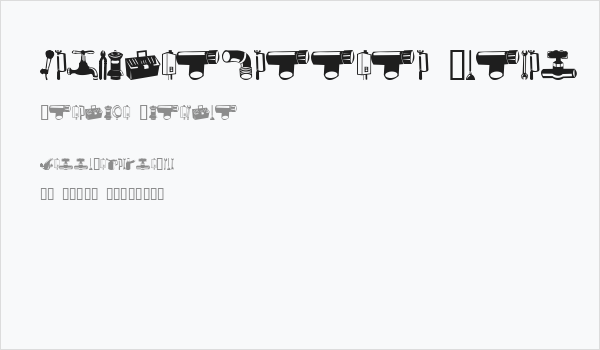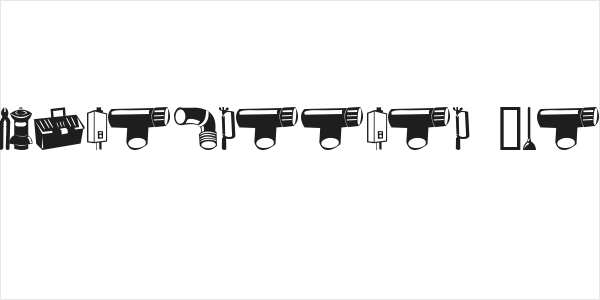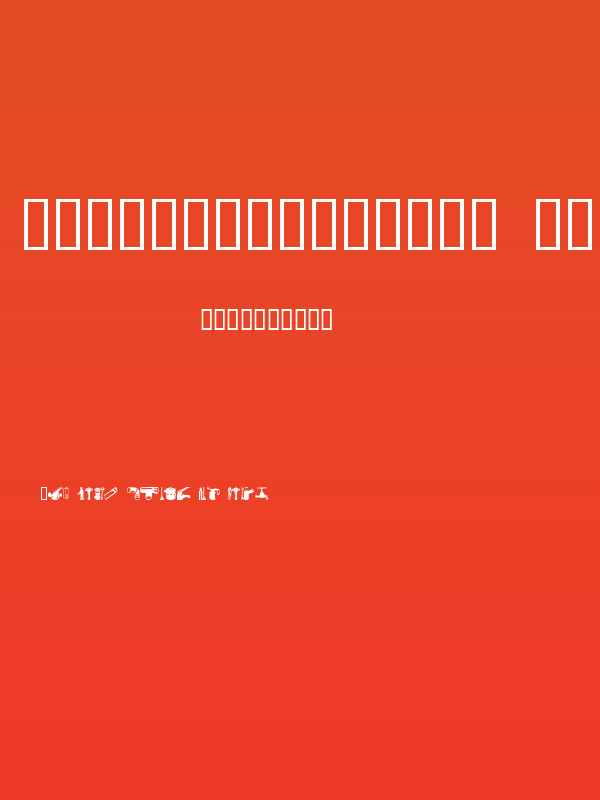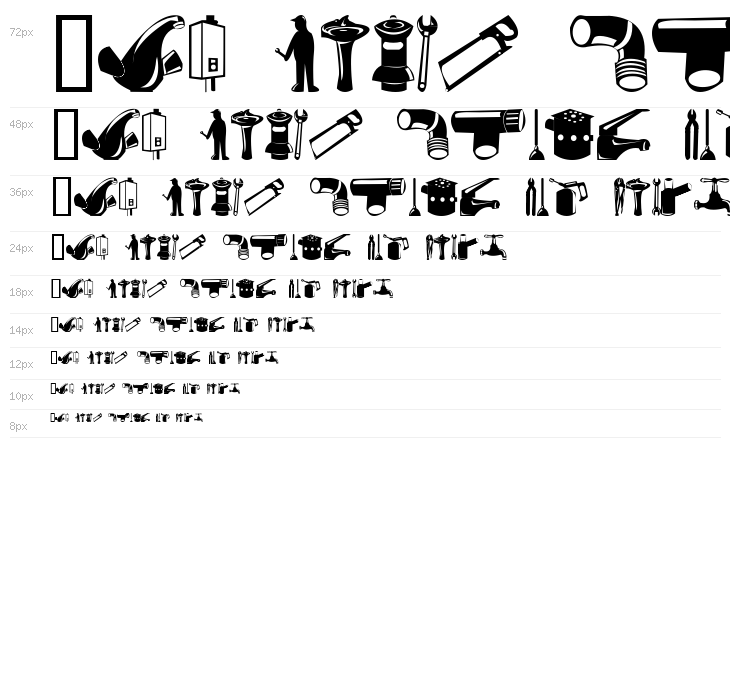
gasfiterbarrera Normal Font
gasfiterbarrera Normal Description
A decorative dingbat font featuring various plumbing tools, fixtures, and related equipment as glyphs, rendered in bold black silhouettes with clear, recognizable shapes.
| Overall Style | Decorative, Thematic |
| Use Case | Icons, Signage, Themed graphics, Educational materials |
| Proposed Projects | Instructional materials, signage for plumbing services, infographics, educational posters, themed event graphics. |